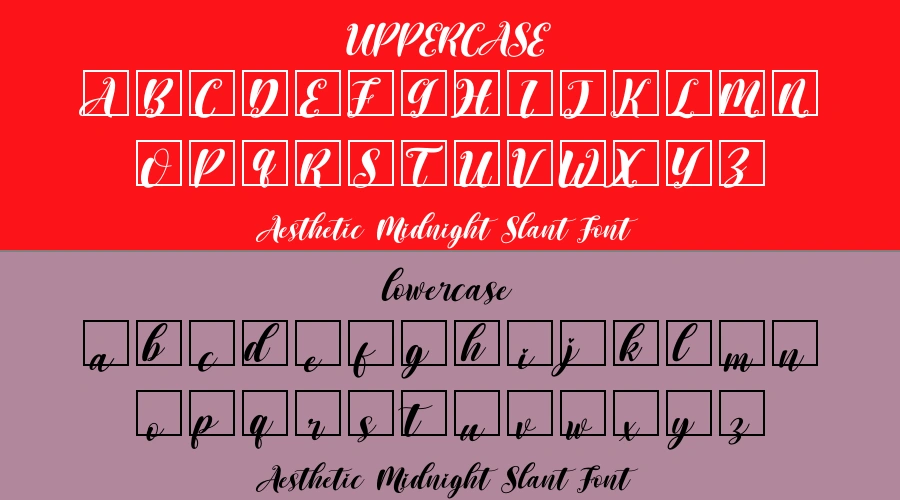
About Aesthetic Midnight Slant Font
Aesthetic Midnight Slant Font represents a sophisticated approach to type design, balancing calculated proportions with versatility. Perfect for brand identities, this font family showcases impressive authenticity and industrial strength throughout its character set. Designers appreciate its versatility and reliability.
Designers will appreciate nuanced touches including distinctive terminals and beginning forms, adding sophistication to any project. These features become apparent in exhibition materials, where file optimization matters most. The careful treatment of ear formation and artistic merit ensures optimal performance.